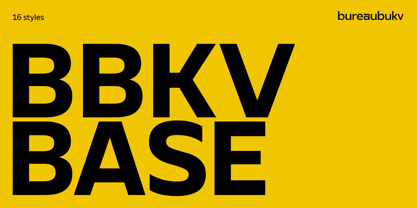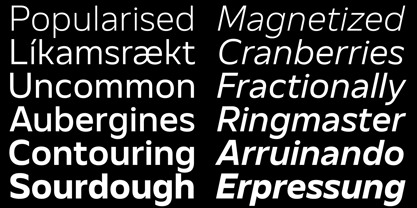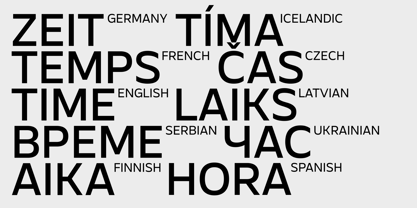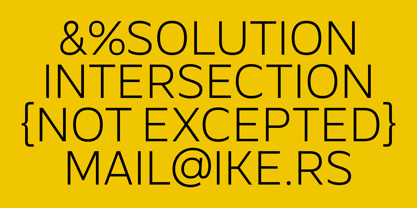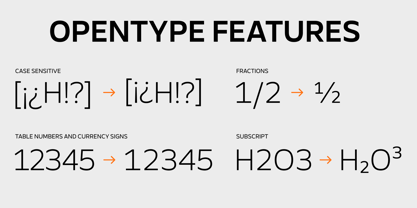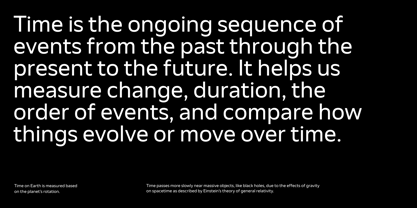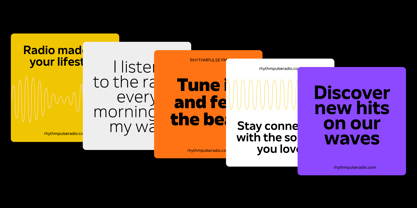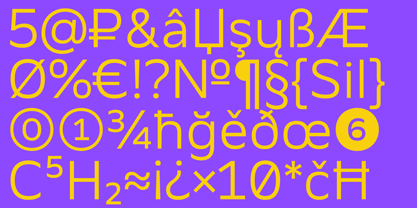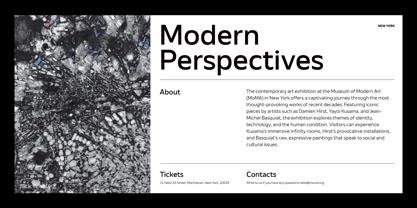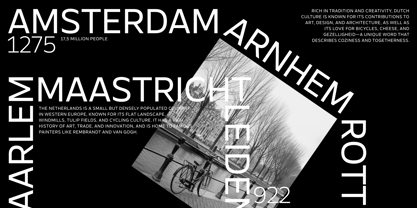
BBKV Base
by Bureaubukv
The BBKV Base Font Family was designed by Tanya Cherkiz and published by Bureaubukv. BBKV Base contains 17 styles and family package options.
About BBKV Base A grotesk typeface in which simplicity becomes expression. It is strict but not cold; neutral yet unmistakably characterful. Slightly condensed proportions give the text a sense of structure, while open apertures provide lightness and comfortable readability. Unobtrusive and versatile, it integrates seamlessly into any visual system. Thanks to its stable construction, the typeface performs consistently well both in interfaces and in long-form text. And its well-designed range of weights makes it a flexible tool for designers who value the balance between functionality and refined form. Language support Afrikaans, Albanian, Azerbaijani, Basque, Belarusian, Bosnian, Bulgarian, Catalan, Croatian, Czech, Danish, Dutch, English, Estonian, Faroese, Filipino, Finnish, French, Galician, German, Hungarian, Icelandic, Indonesian, Irish, Italian, Kazakh, Latvian, Lithuanian, Macedonian, Malay, Mongolian, Norwegian Bokmål, Polish, Portuguese, Romanian, Russian, Serbian, Slovak, Slovenian, Spanish, Swahili, Swedish, Turkish, Welsh, Zulu